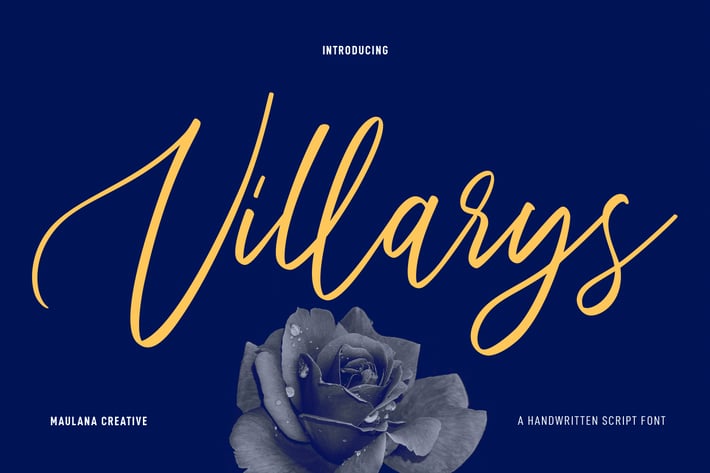
Villarys Handwritten Script Font
Villarys is an beautiful Script font. With high contrast stroke, fun character with a bit of ligatures. To give you an extra creative work. Villarys font support multilingual more than 100+ language. This font is good for logo design, Social media, Movie Titles, Books Titles, a short text even a long text letter and good for your secondary text font with sans or serif. Make a stunning work with Villarys font.